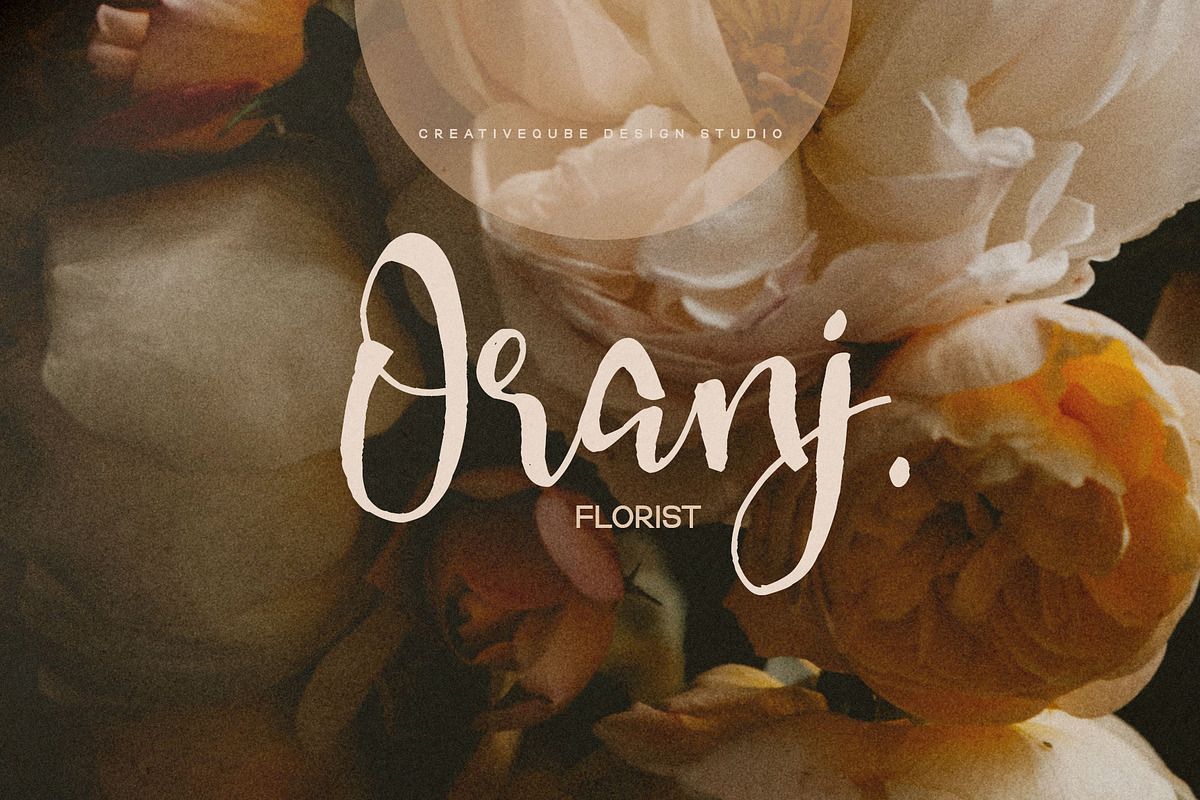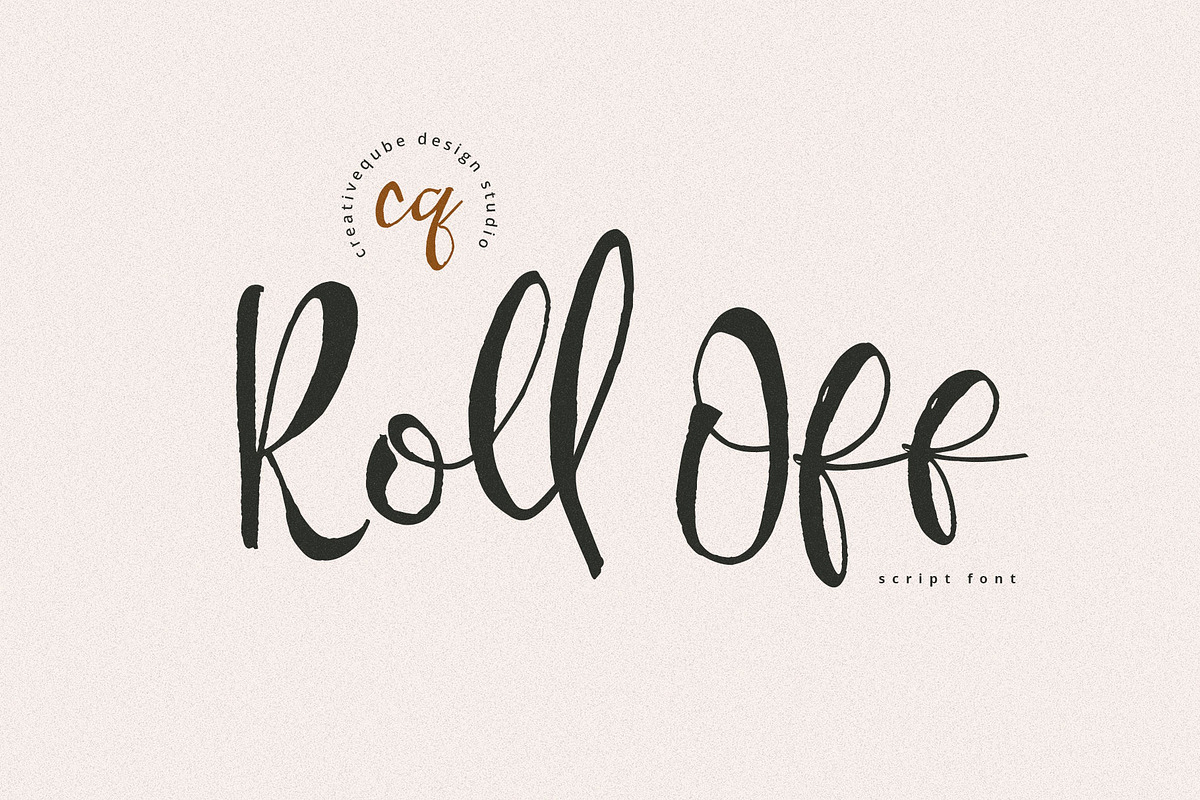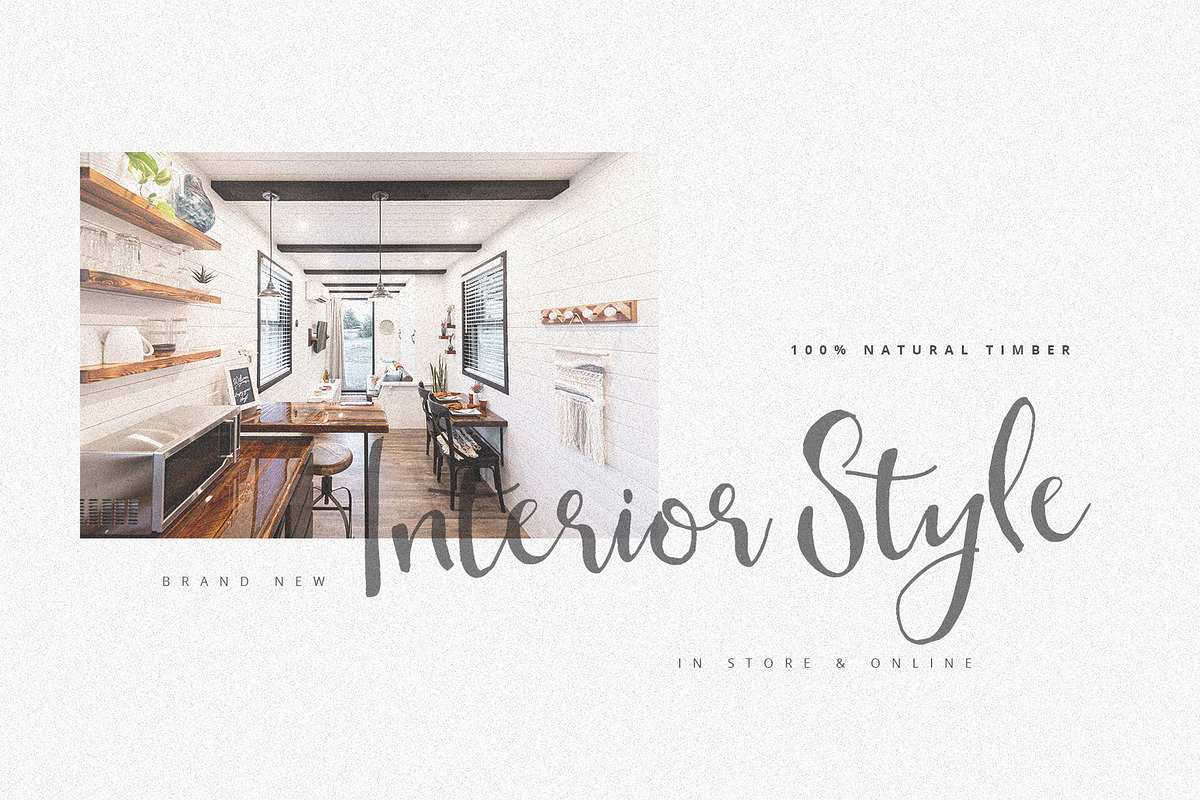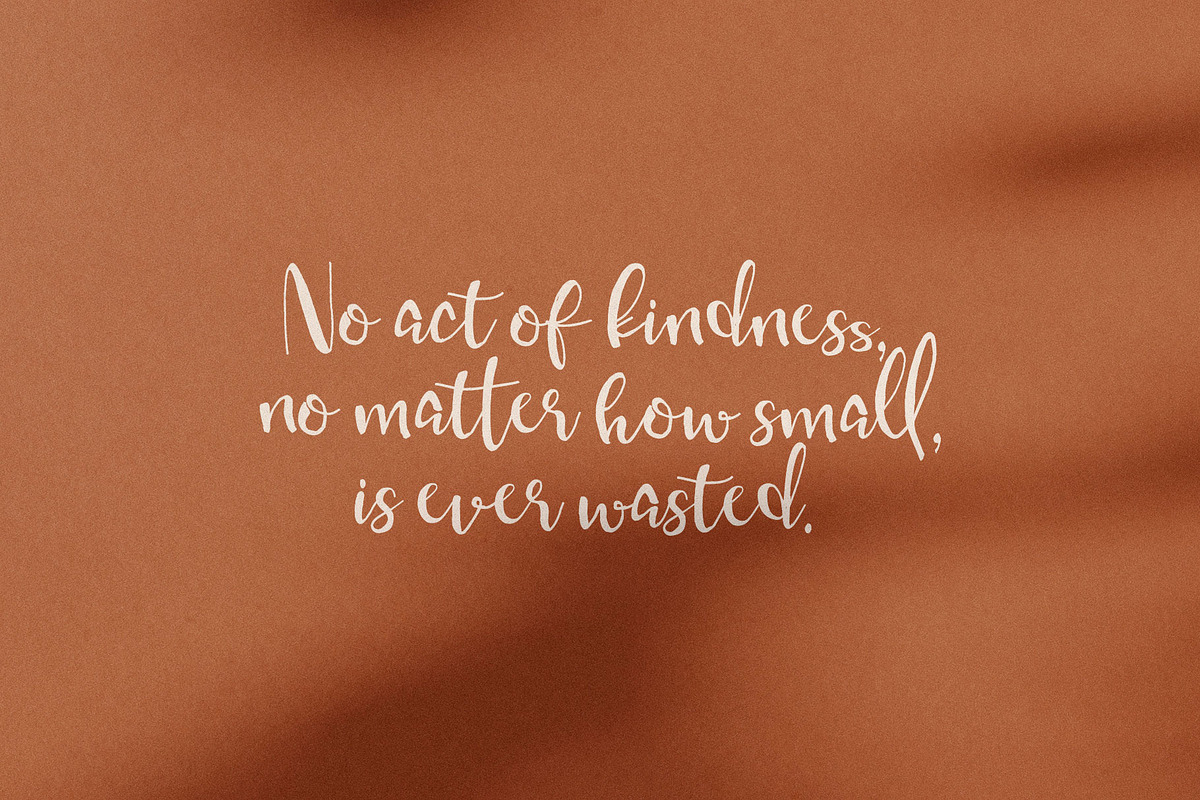
Roll Off Script Font
Roll Off Script Font by Creativeqube Design is a font selected for branding, posters, packaging, typography.
Why Roll Off Script Font is worth a look
Roll Off Script Font by Creativeqube Design fits naturally into Branding, posters, packaging, typography.